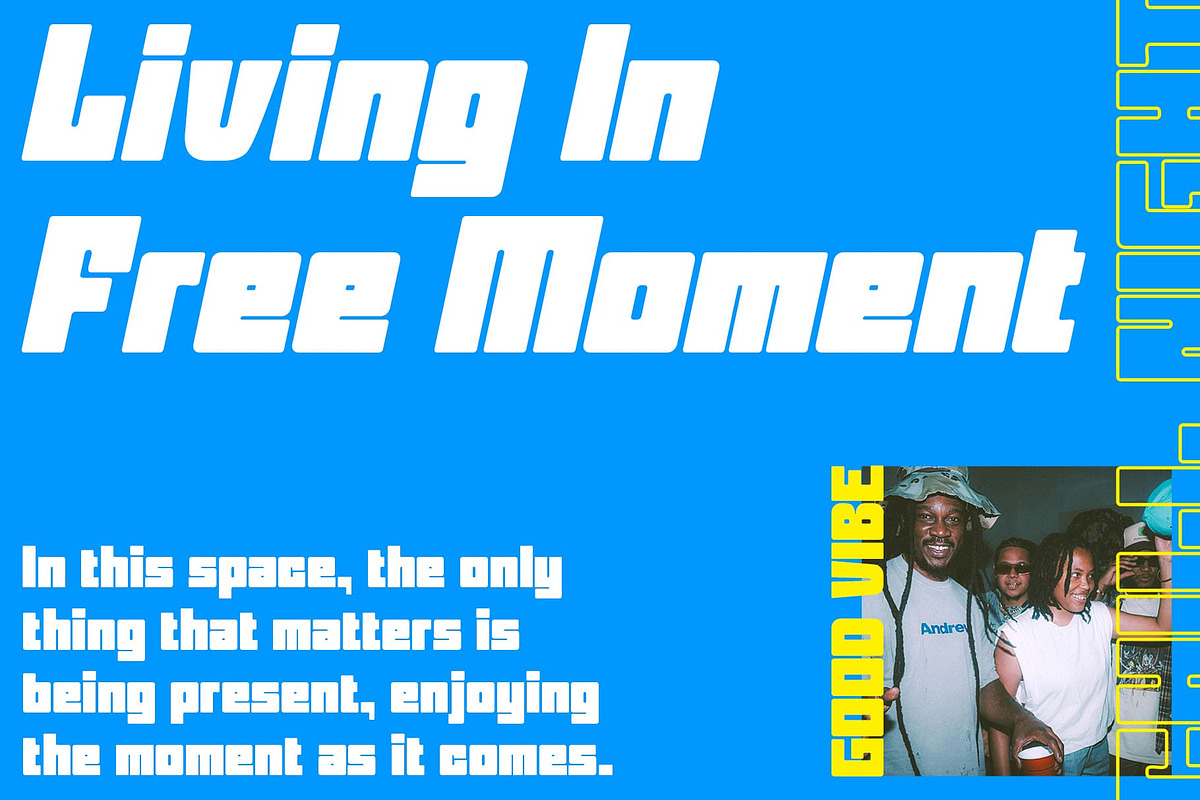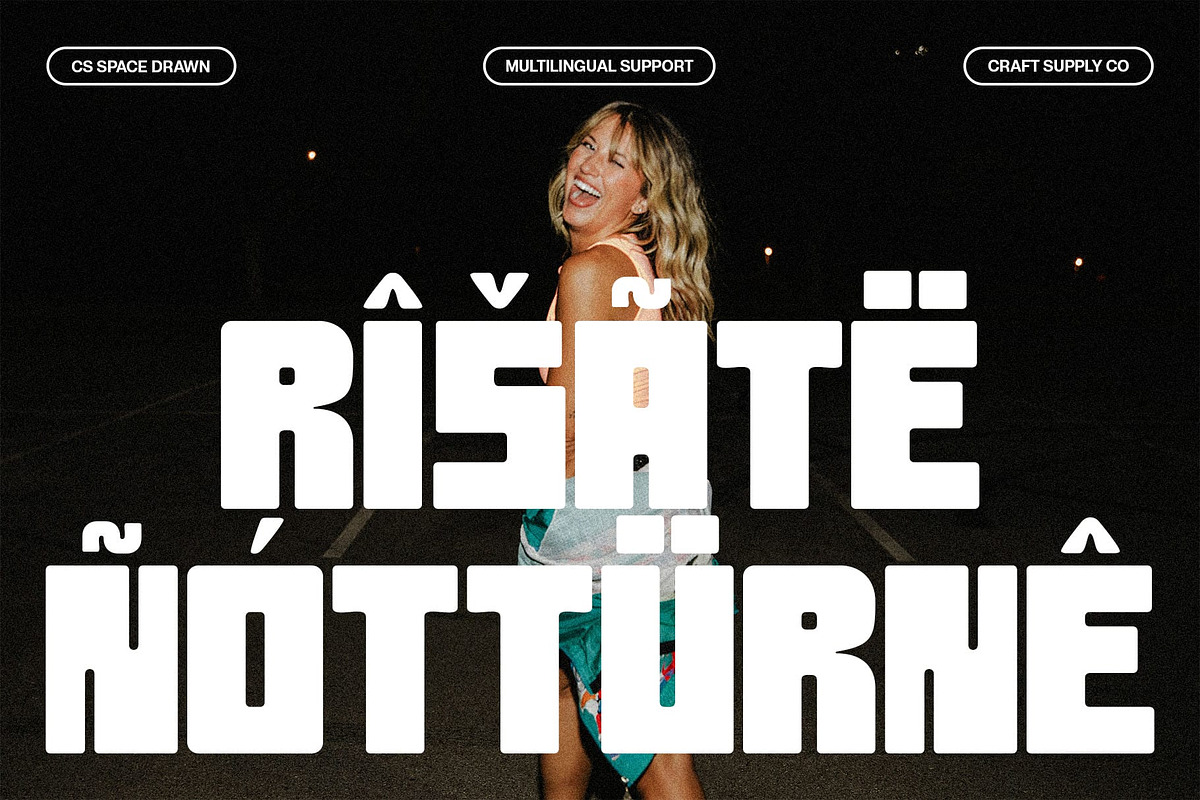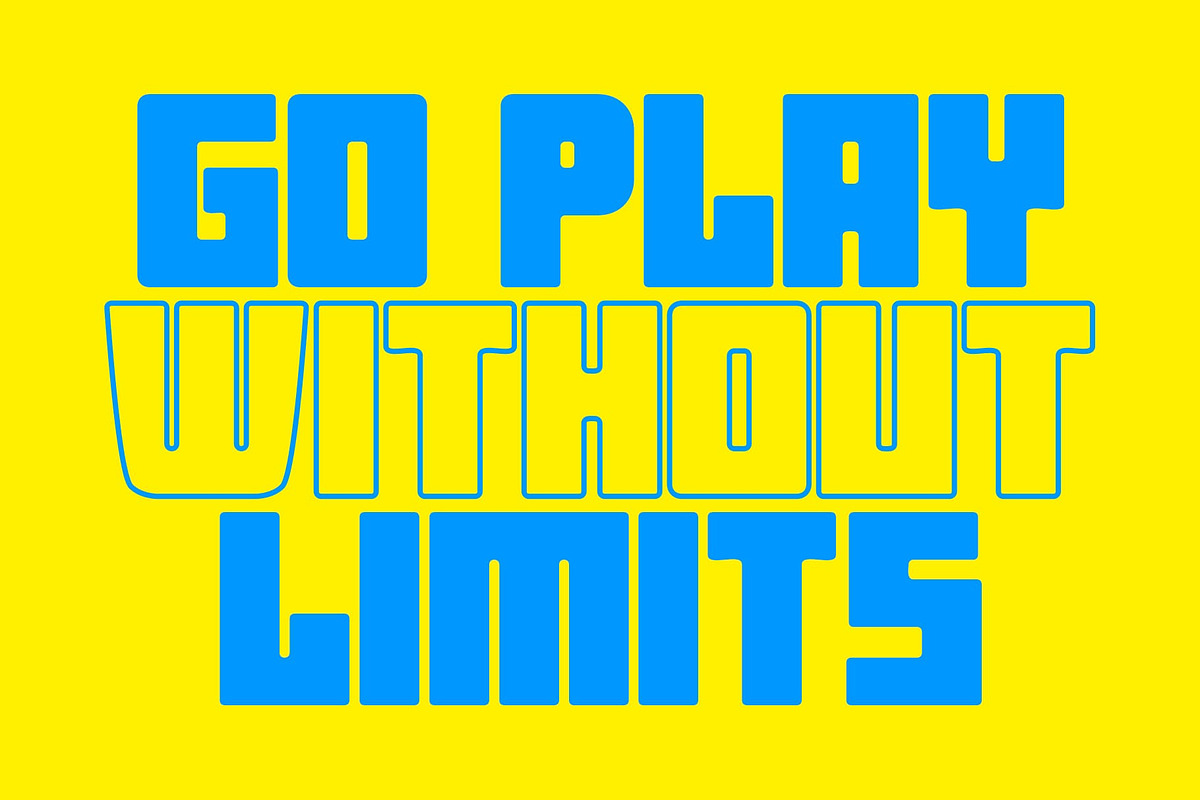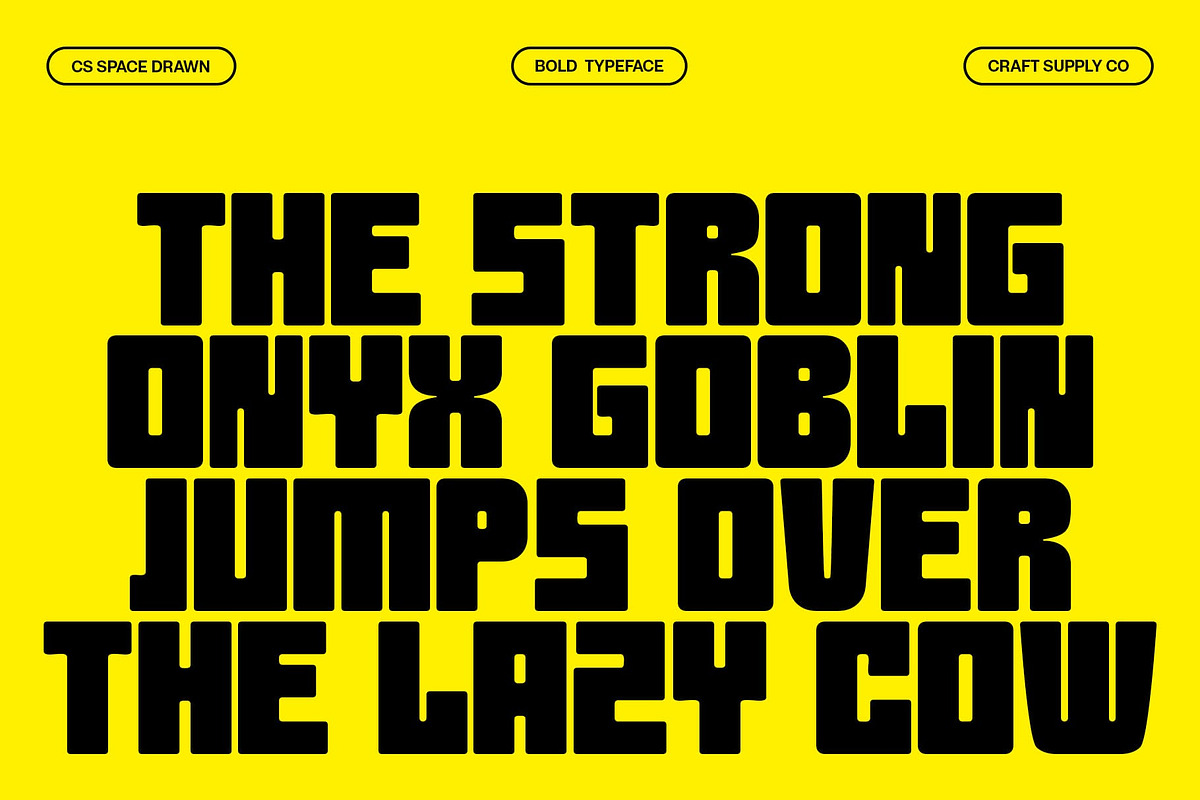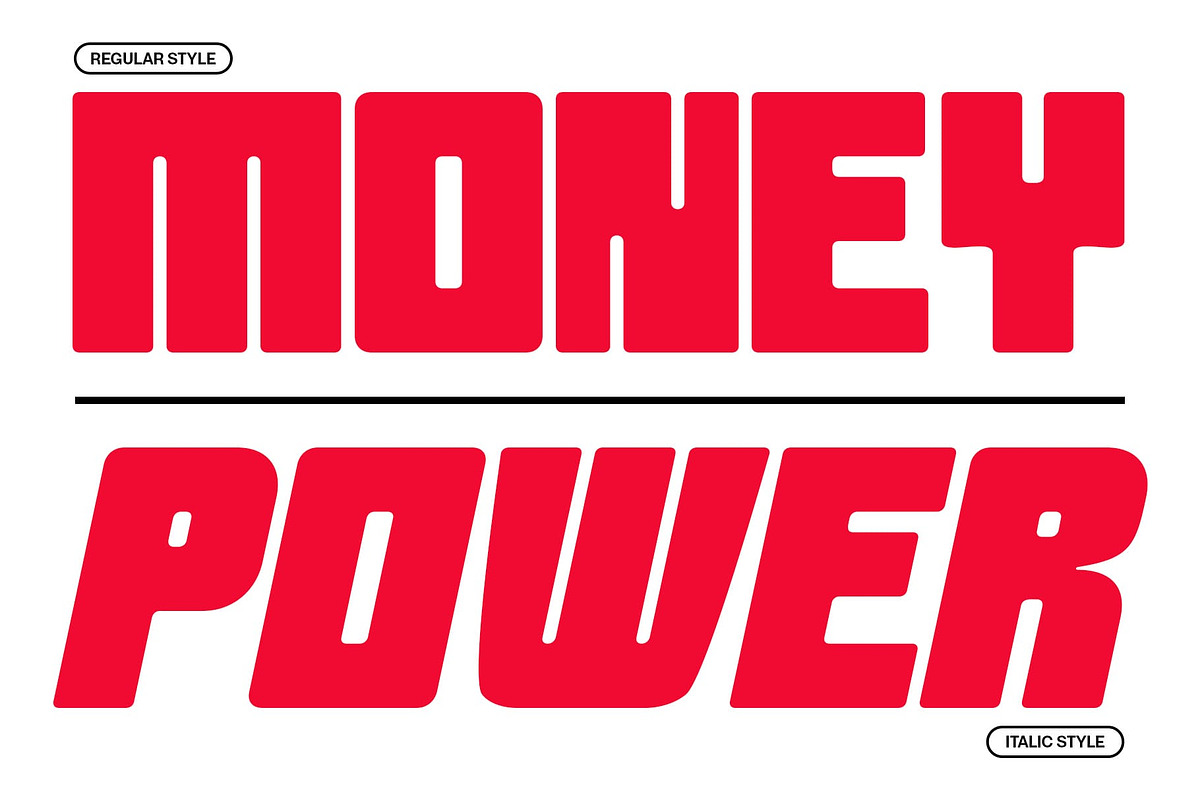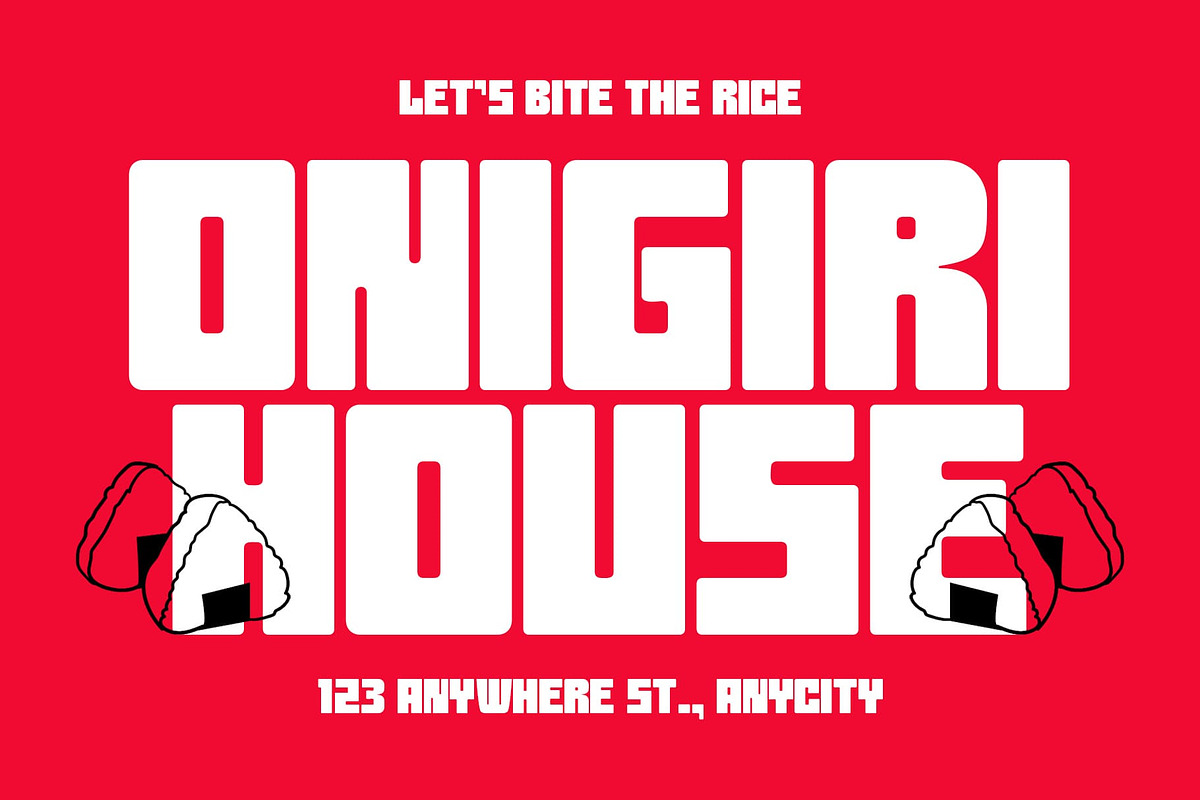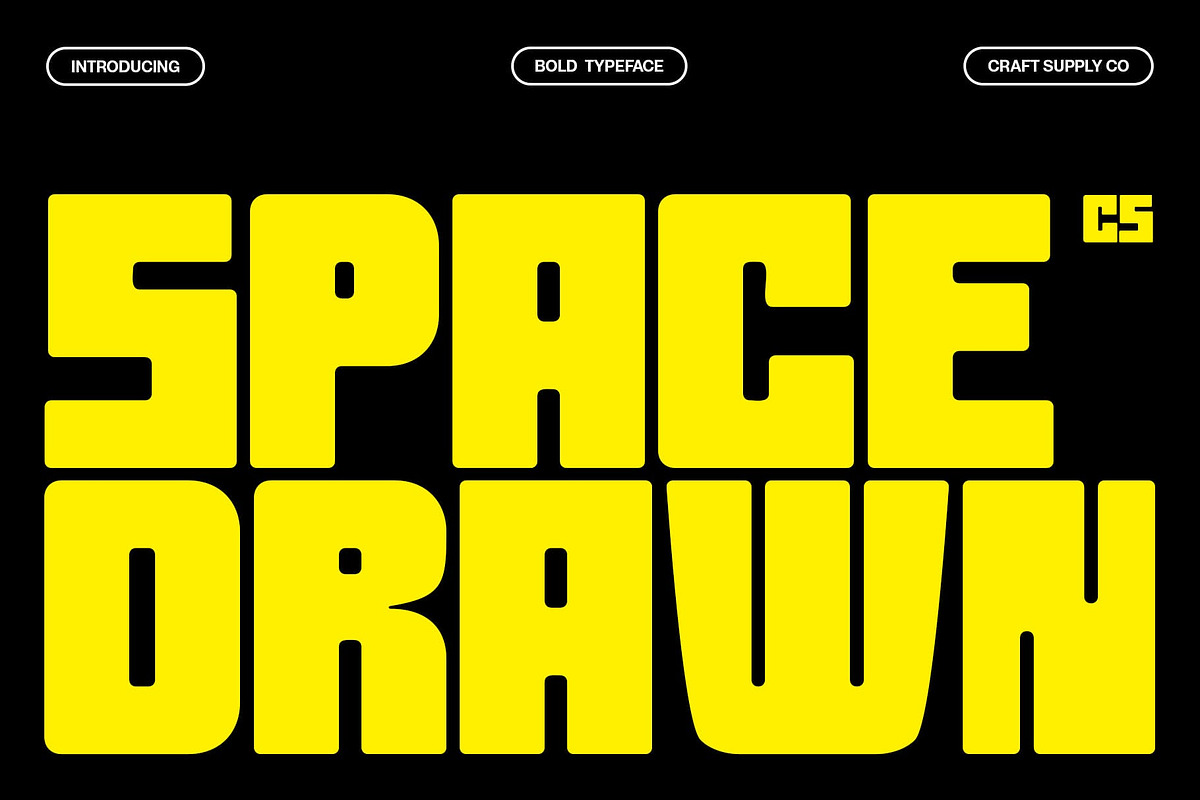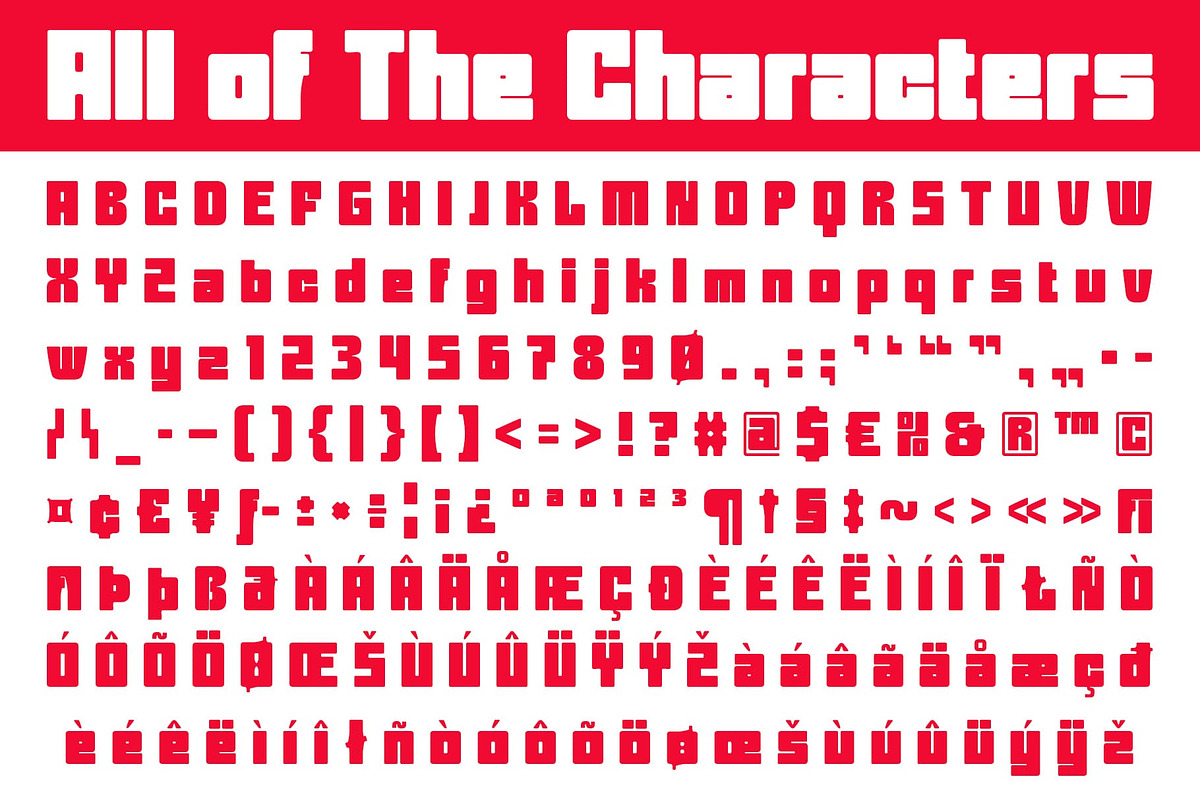
CS Space Drawn
CS Space Drawn – Condensed Sans Serif with Bold Drawn Texture, Compact Display Font and Modern Strength
Bold and Space-Efficient CS Space Drawn is a condensed sans serif font designed for maximum impact in minimal space. Its compact form makes it perfect for tight layouts, allowing headlines and titles to stand tall without overwhelming the design. Bold strokes ensure strong visibility while keeping the style modern and clean.
Drawn Texture with Character What sets CS Space Drawn apart is its drawn texture, which adds a handcrafted, expressive edge to its structured form. This detail softens the rigidity of its geometry, giving each letter a sense of artistic individuality while retaining clarity and legibility.
Balancing Readability and Boldness Built to command attention, CS Space Drawn strikes the ideal balance between bold display power and practical readability. Its condensed shape ensures efficiency, while the textured finish infuses personality—making it versatile for both professional and creative applications.
Perfect for Headlines and Branding From striking posters and impactful headlines to branding projects that demand a strong presence, CS Space Drawn delivers. Its combination of compact design, bold strength, and handcrafted detail makes it a go-to font for designers seeking modern impact with an artistic touch.